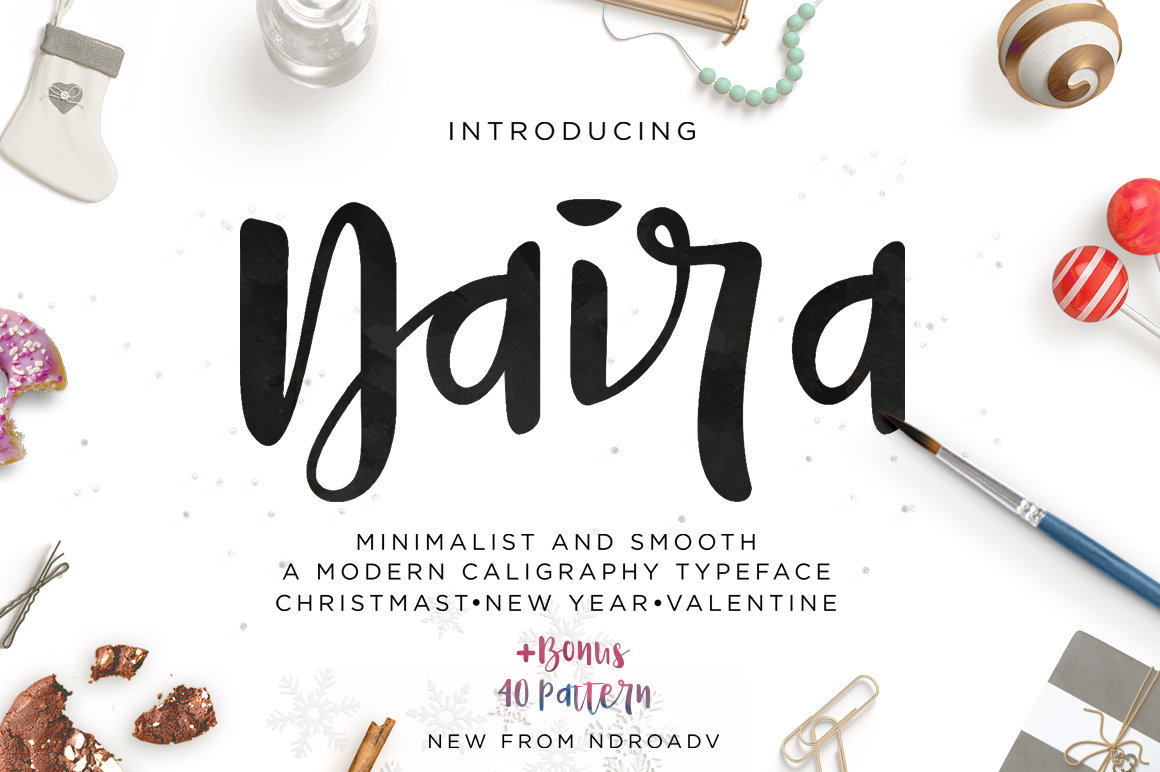
Naira Script
Naira Script Font
Naira Script here’s a modern caligraphy script with a very funy, very feminine, fresh and simple design. this font can help you to create a beautiful design. Naira Script can used for various purposes. such as the envelope desigin, logo, title, wedding invitations, letterhead, labels, newsletters, signage, posters, badges, etc.